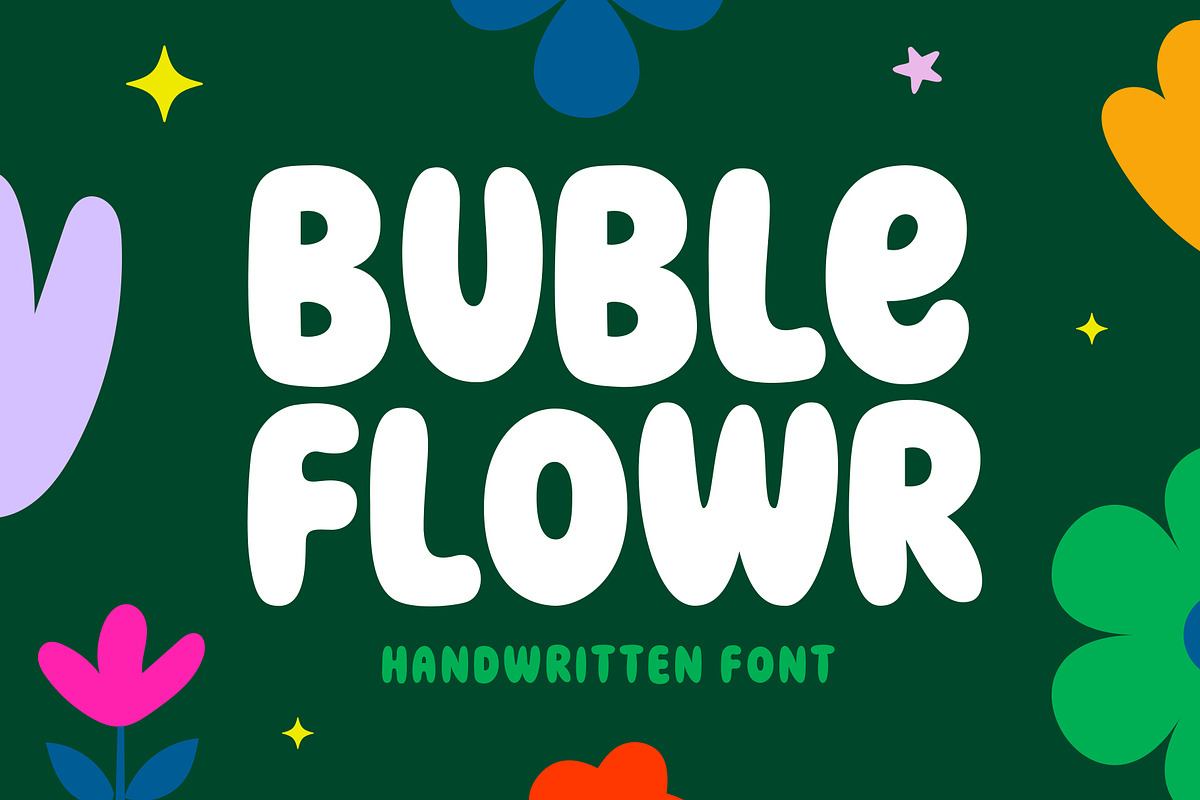
Discover the vibrant energy of the Buble Flowr - Retro Groovy Font Free Download, a typeface that brings the spirit of the '70s into your modern designs. With its bold curves and psychedelic flair, this retro groovy font is perfect for posters, branding, album covers, or any creative project that craves a vintage vibe. Buble Flowr isn’t just stylish—it’s a statement.
Designed for designers who dare to stand out, Buble Flowr adds a nostalgic touch that captures attention instantly. Whether you're creating a logo, a digital ad, or a funky headline, this font delivers that throwback magic with modern precision. The free download allows you to test how Buble Flowr enhances your creative work before committing to a license.